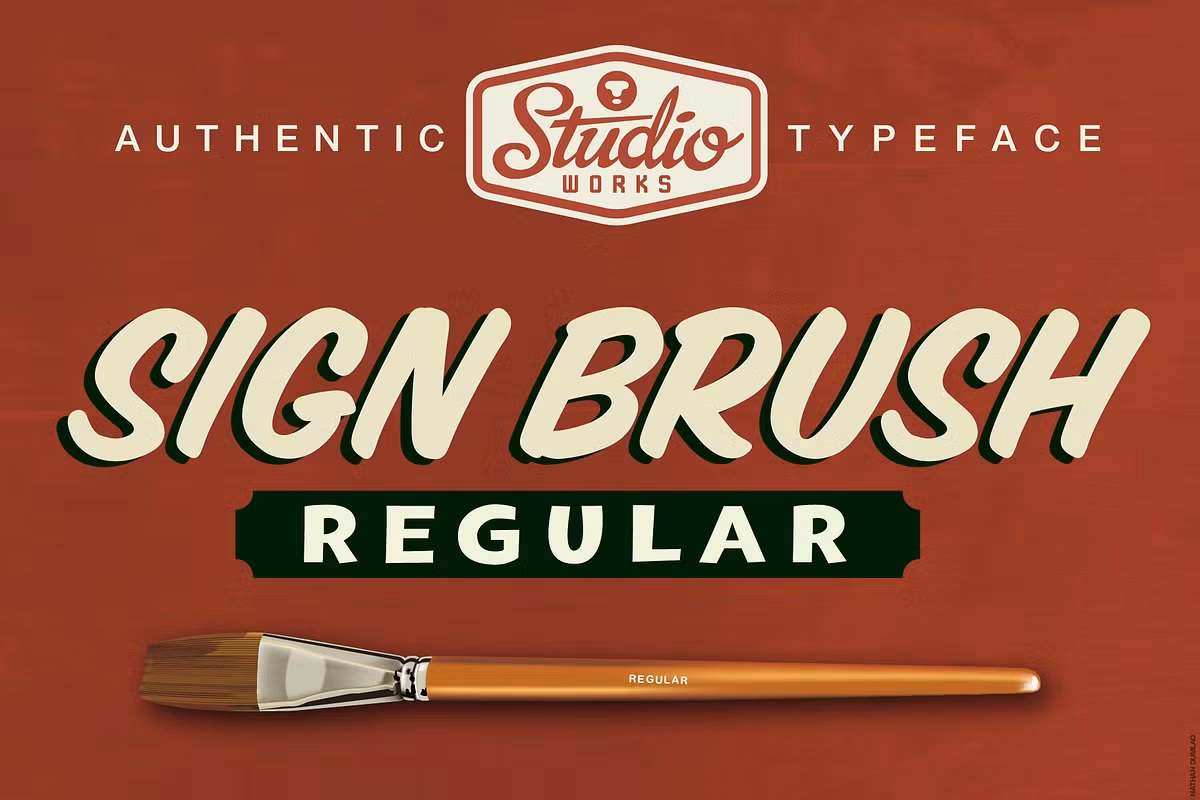
Sign Brush Regular | Display Type Free Download
Sign Brush Regular | Display Type Free Download is a bold and energetic typeface designed to make a strong impression. With its brushstroke-inspired design and dynamic, artistic flair, this font is perfect for creating eye-catching logos, posters, signage, and advertising materials. Whether you're designing for a creative brand, event promotions, or social media content, Sign Brush Regular | Display Type Free Download adds a unique, handcrafted touch to your projects. Its bold and expressive style makes it ideal for high-impact designs that demand attention. Test this striking font in personal projects before purchasing a commercial license, and bring a vibrant and creative edge to your designs with this powerful display font.